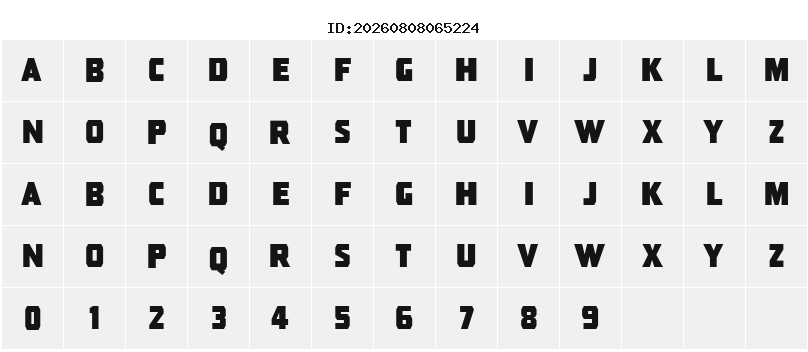
• Font Name: Pressboard JL
• Designer: Jeff Levine & Ray Larabie
• Manufacturer: Jeff's Fonts & Dingbats
• Description: Another font created by modifying and editing a Larabie Fonts original. Permission was granted by Ray Larabie for this effort.
Pressboard JL.ttf is a modern, elegant sans-serif font designed for ultimate readability and visual harmony. Perfect for branding, headlines, web design, and print materials.